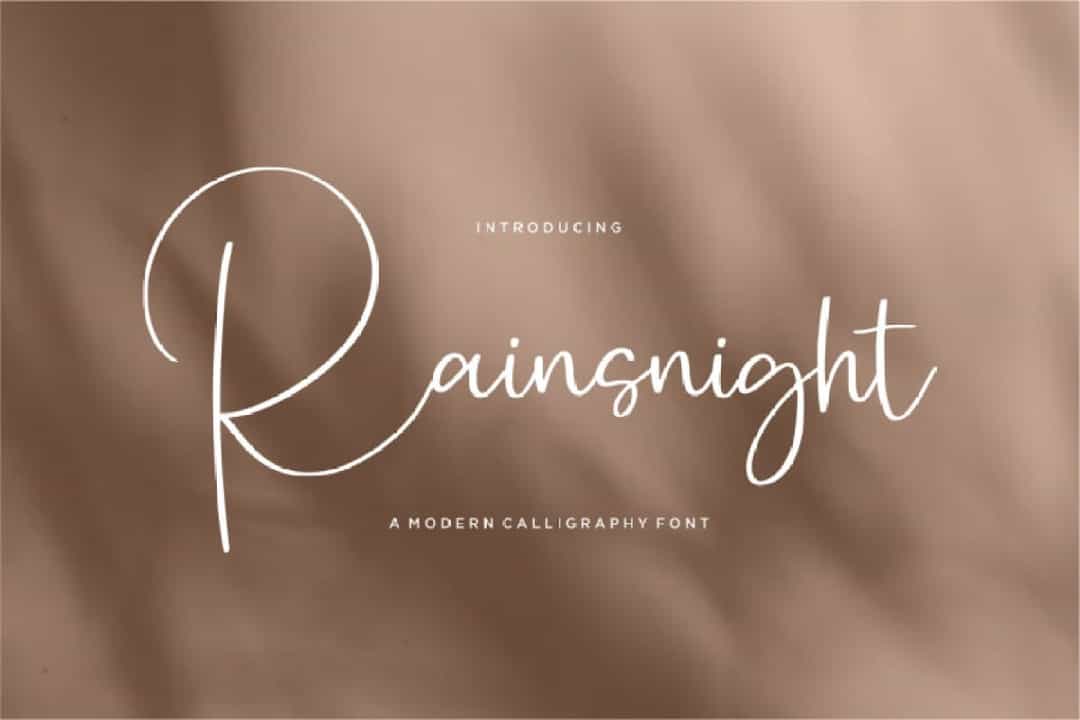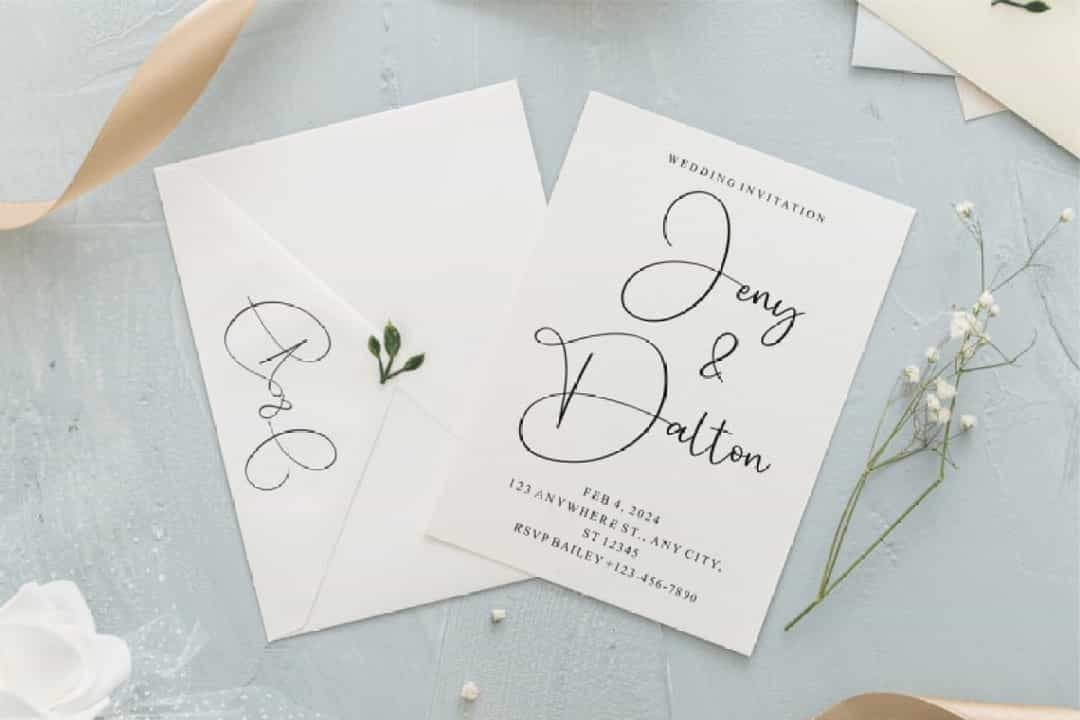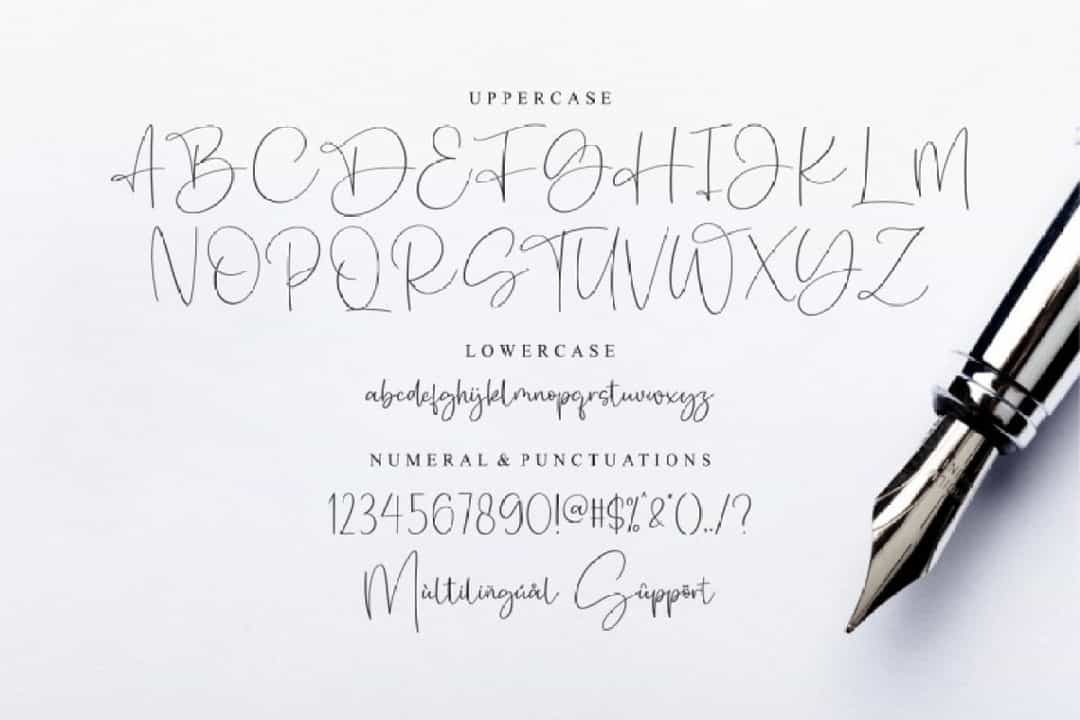
Rainsnight is an eye-catching modern handwritten font. Perfect for packaging products, branding projects magazine wedding, social media posts or simply conveying words over an image background.